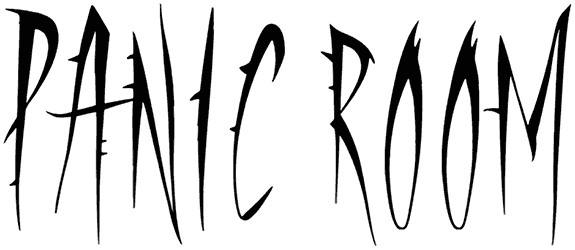
Panic Room Font
If you believe that conveying a sense of fear, dread, and excitement would work in impressing the audience, we offer you a horror font such as Panic Room. Although it doesn’t support lowercase letters and punctuation, it would be fabulous on movie posters, video game banners, book covers, and more.